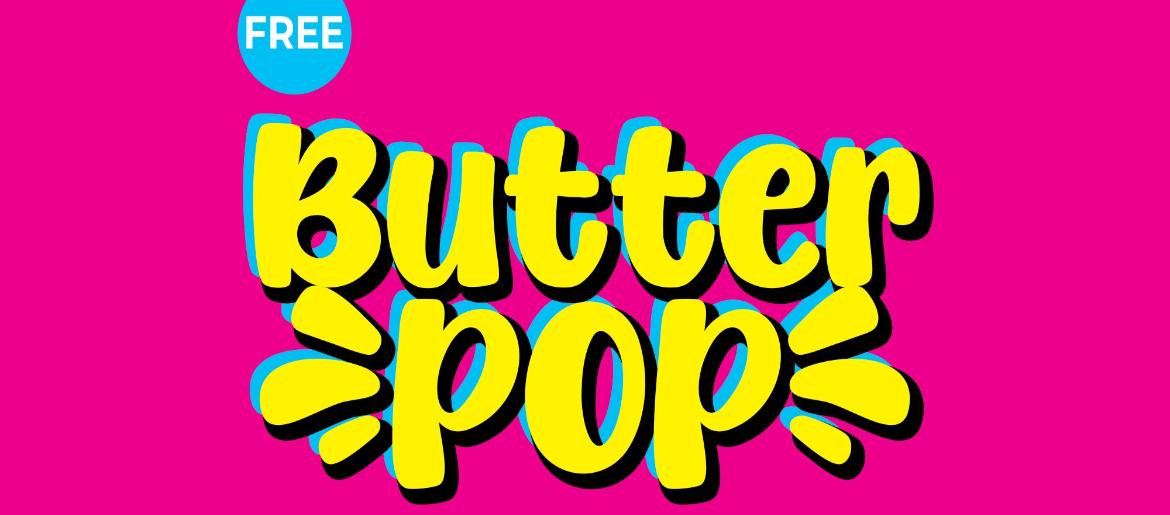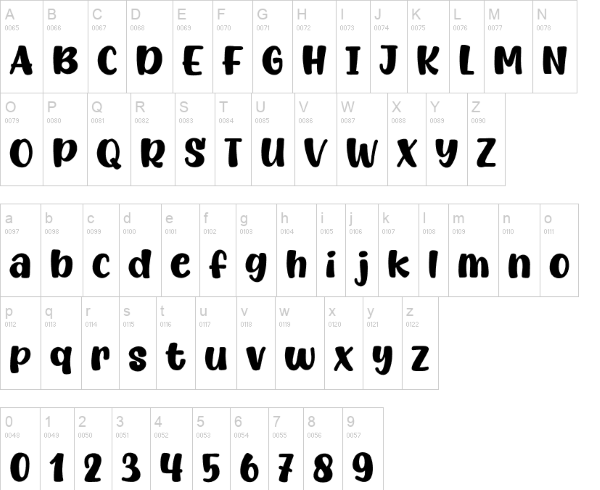
Butterpop Font
Butterpop font
Butterpop Font is a playful cartoon-style typeface featuring thick, bouncy letterforms enhanced with fun “motion spark” details. Its energetic personality makes it a perfect choice for snack packaging, toy branding, kids’ designs, and vibrant social media graphics that need a cheerful, eye-catching look.
➤ Font Name:Butterpop
➤ Designer:Khurasan
➤ Style:Cartoon